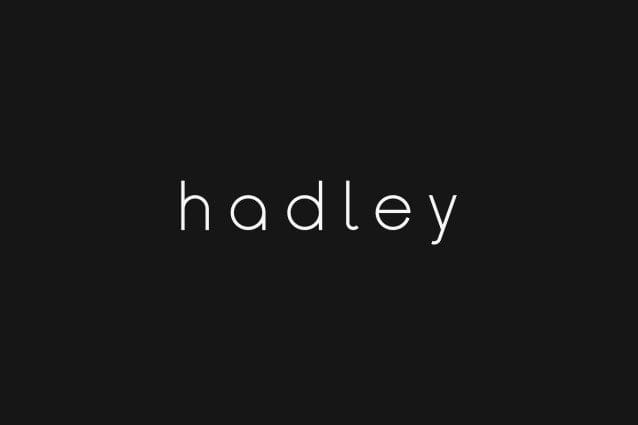
Hadley Font
Hadley Font is an elegant and versatile sans serif font that will make your typography truly unique! It will enchant every logo, branding, headline, or plain text!